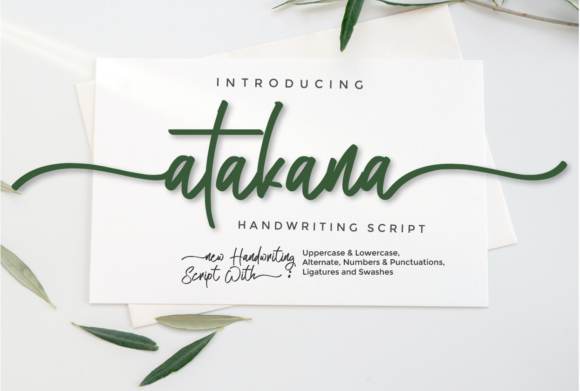
Atakana Script: A Refreshingly Elegant Typeface for Modern Designs
There's a certain magic in a font that feels both timeless and fresh. That's the immediate impression with Atakana Script. It’s not just another script font; it’s a carefully crafted tool designed to inject a sense of refined beauty and approachable sophistication into your work. The strokes have a lovely, delicate flow, balancing the organic feel of a handwritten font with the precision of a well-designed typeface. This isn't the bold, brash script you'd see on a rock poster. Instead, Atakana Script whispers rather than shouts, making it perfect for projects that aim for elegance, class, and a touch of personal charm.
Think of it as the typographic equivalent of a beautifully handwritten note on high-quality paper. The letterforms connect with a natural, fluid rhythm, but there's an underlying structure that keeps everything legible and balanced. Its personality is versatile—it can feel luxurious for a high-end brand, romantic for a wedding suite, or refreshingly modern for a lifestyle blog. The appeal lies in its ability to add a human touch without sacrificing professionalism. For designers and creators, this premium font offers a way to stand out with subtlety.
Where Does This Elegant Script Truly Shine?
The strength of a creative font like Atakana Script is its adaptability. It’s a specialist in creating mood and atmosphere. In brand identity, it’s a powerhouse for logos, especially for businesses in beauty, fashion, artisan goods, boutique hospitality, or premium personal services. Imagine it on a logo for a bespoke florist, a luxury candle brand, or a high-end café. It instantly communicates quality and care.
Beyond logos, it excels in packaging design. Think of the labels on artisan chocolate boxes, the script on a wine bottle, or the branding on handcrafted soaps. Atakana Script adds that shelf appeal that suggests a product is made with passion and attention to detail. For editorial design, it’s a stunning choice for magazine mastheads, pull quotes, or chapter titles in lifestyle and design publications. It brings a human, curated feel to the printed page.
In the digital realm, it’s a gem for web design and social media graphics. Use it sparingly and strategically—a hero section quote, a call-to-action button, or an elegant header for a blog post about design or travel. It’s equally powerful in print for wedding invitations, greeting cards, thank-you notes, and any project where a personal, heartfelt message is key. The key is context. This script font isn't for body text or long paragraphs. It's a display font, meant for headlines, logos, and short, impactful phrases where its character can be fully appreciated.
The Practical Side: Using Atakana Script Effectively
Choosing a font is a strategic decision. Before diving in, ask: does Atakana Script fit the project's voice? If your goal is to evoke warmth, elegance, or a bespoke quality, it’s a strong candidate. If you need ultra-clean, geometric, or highly technical communication, a sans serif font might be a better primary choice.
One of the most critical steps is font pairing. Because Atakana Script is so expressive, it needs a calm, stable partner. Pair it with a clean serif font like Garamond or a neutral sans serif font like Montserrat or Open Sans for body text. This contrast creates a clear visual hierarchy and ensures readability. The script captures attention and sets the tone, while the supporting font delivers the detailed information.
Always test readability. At smaller sizes or on low-resolution screens, the delicate details of some script fonts can get lost. Check that your chosen words are instantly recognizable. A major practical advantage of Atakana Script is that it is PUA encoded. This means you have easy access to all the beautiful alternate characters, swashes, and ligatures right from your character map. This allows for incredible customization—you can tweak a headline to make it uniquely yours, adding flourishes or connecting letters in special ways to enhance the design.